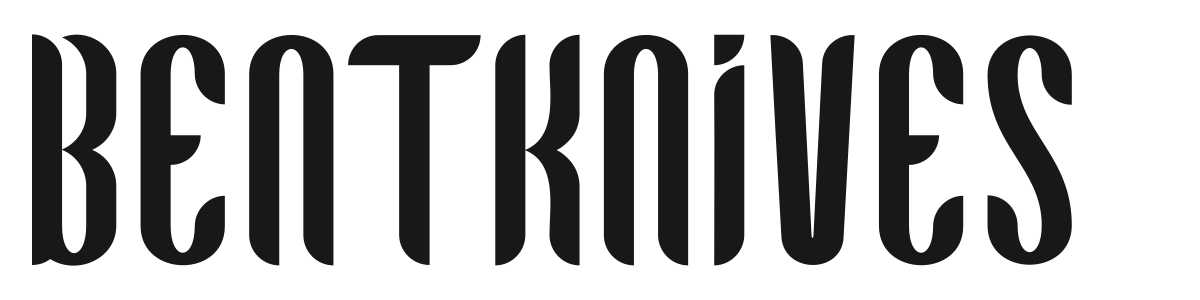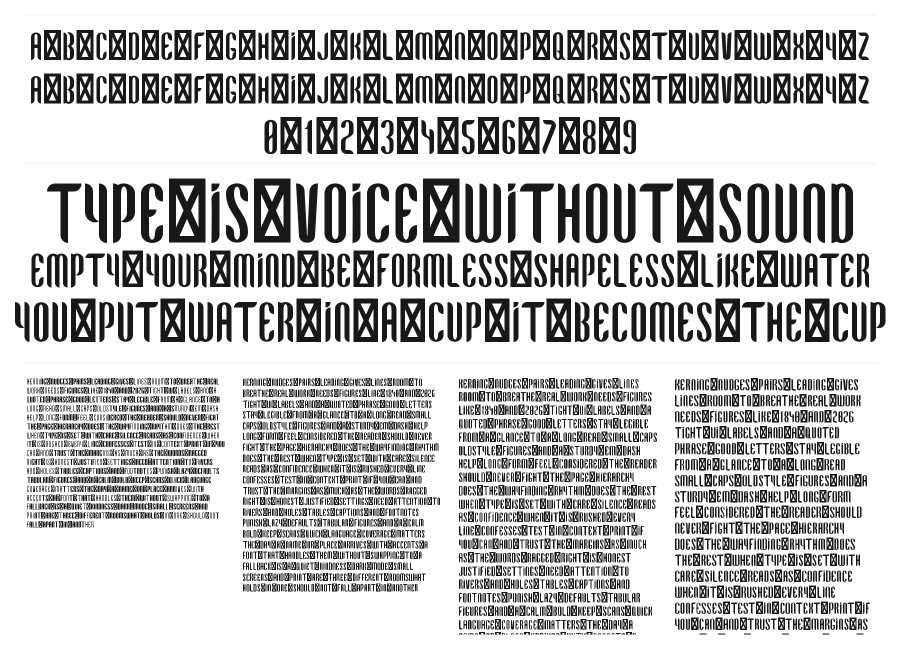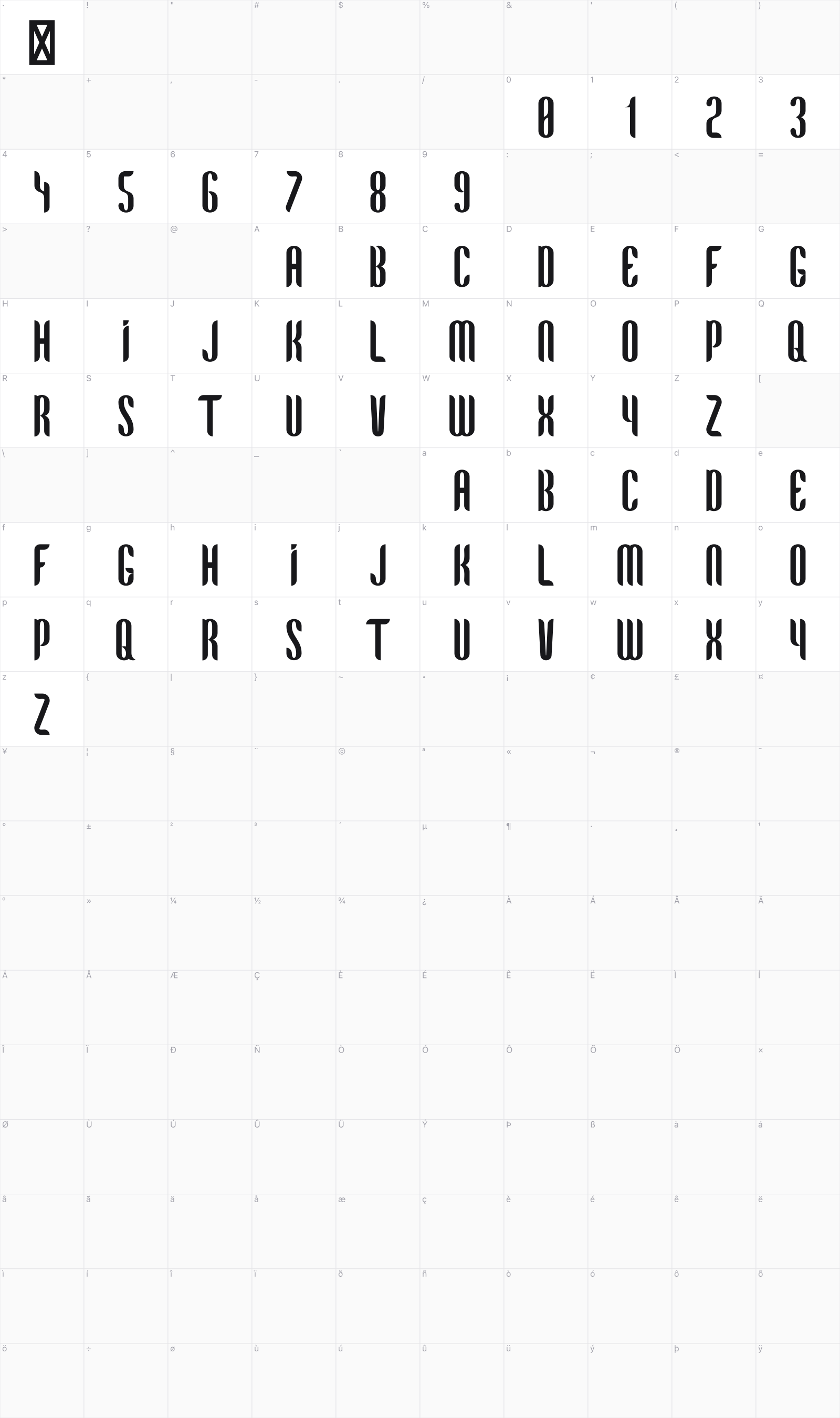
Bent-Knives
Bent-Knives is a tall condensed display face with deep notched cuts and tapered strokes that slice into each character like a blade. The contrast between thick stems and sharp interior concavities gives it a sinister retro energy somewhere between art nouveau and 1970s underground poster art. It commands attention at large sizes and suits anything that needs attitude.